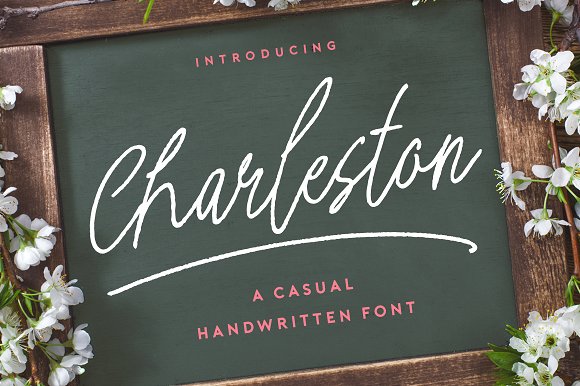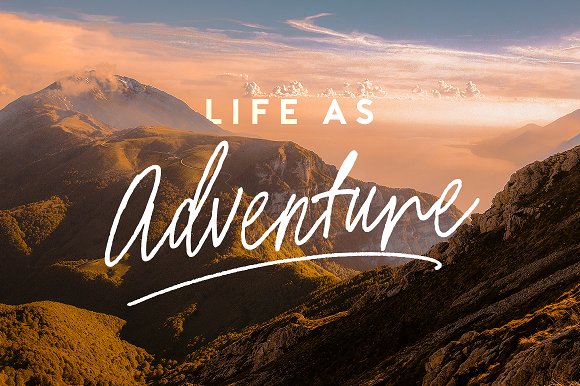
Charleston Font
Its impressive casual handwritten font with two styles to give your more ‘hand lettered’ look to your designs. Casual, elegant and playful script with a flirty baseline, perfect for Branding, Logos, Greeting Cards,Wedding Stationery and Quotes. It comes with a handy set of Opentype Stylistic Alternates and Ligatures. Also, it comes with special swashes set typeface.